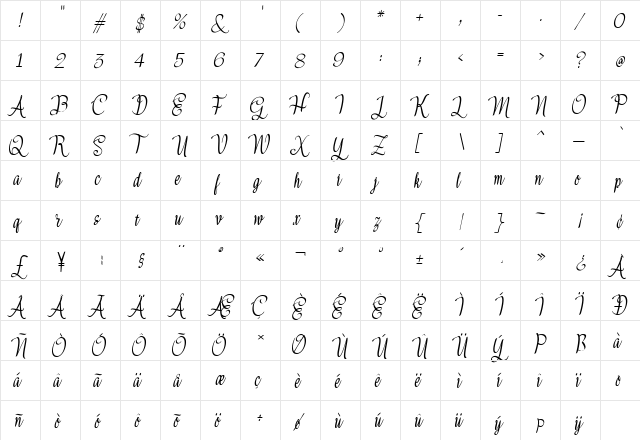
Meikayla script Regular
Design Context for Meikayla script Typeface
Meikayla script brings a calligraphic fluidity to the page — its connecting strokes and expressive curves give it an unmistakably human quality.